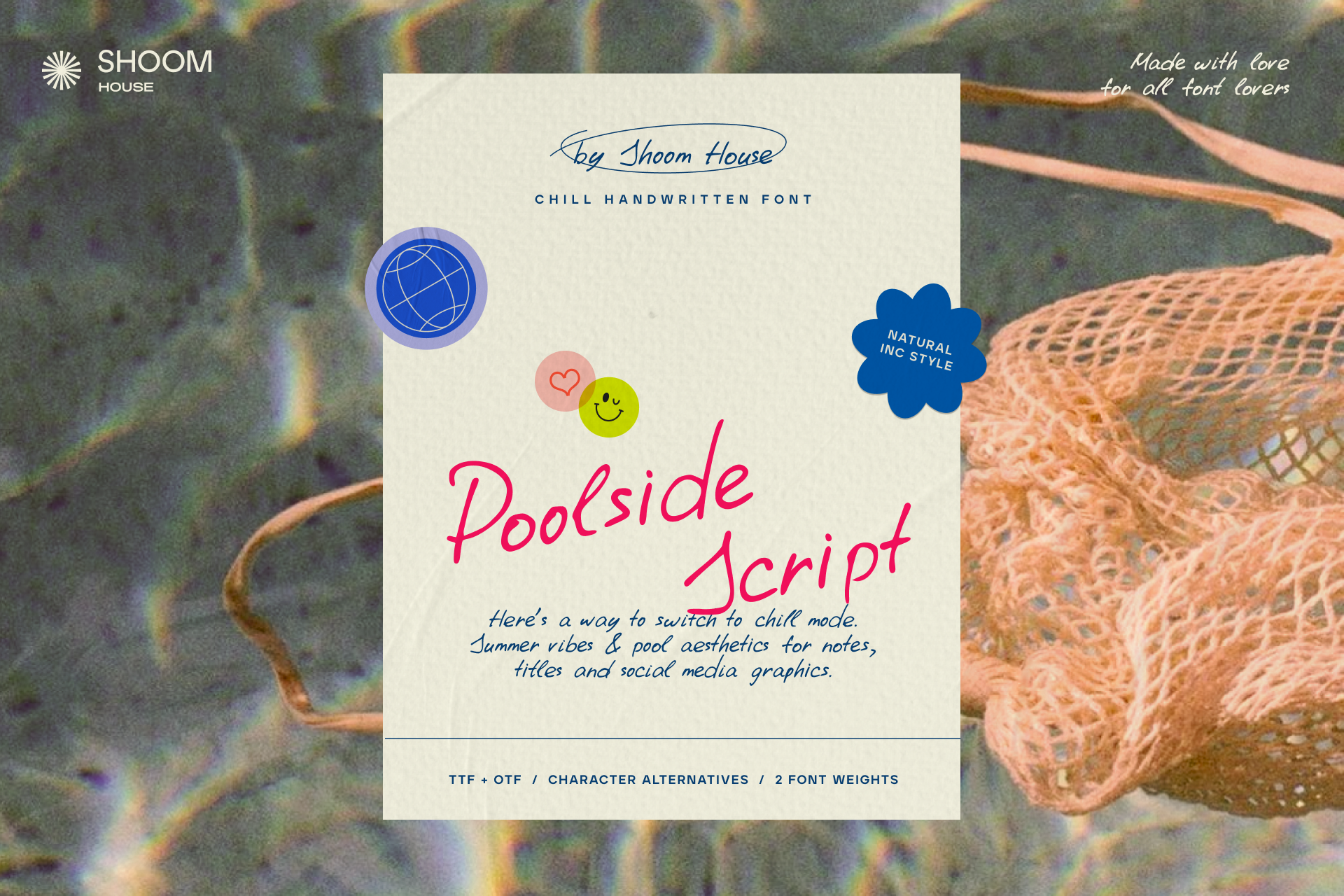
Poolside Script: Chill Typeface
✽ MISSING SUMMER WARM & POSITIVE VIBES? POOLSIDE SCRIPT IS HERE TO GIVE YOU CHILL AESTHETICS!
Here's a handwritten relaxed typeface that imitates a real note. Poolside Script's characters have natural vibes and ready to add some fresh & unique aesthetics to your social media graphics, printing and branding materials, website designs and other beautiful things!
✽ FONT FEATURES
- x2 Font weights: Regular + Bold
- x2 Letter cases: low- and uppercase
- x26 (A-Z) English characters
- x2 variables for each character
- 10 (0-9) Numbers
- x30 Punctuation symbols